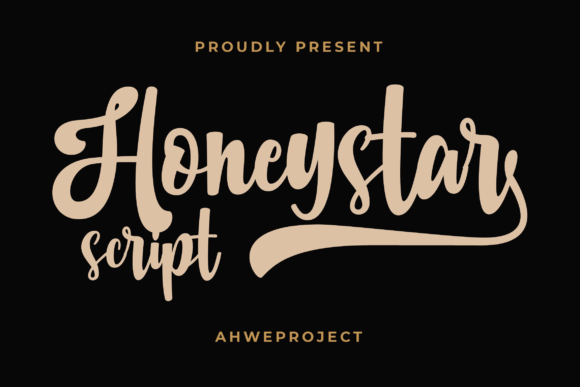
Join the lettering revolution with Honeystar Font, a beautifully crafted handwritten script font that will add a touch of nostalgia and charm to your creative endeavors. Gaze upon its graceful glyphs and swashes, lovingly designed to evoke the essence of yesteryear while embracing the aesthetics of modern design.
Honeystar Font is the perfect companion for any project seeking a vintage, handwritten touch. Its bold strokes and retro flair will elevate your headlines, logotype designs, and branding materials to new heights of elegance and sophistication. Picture your designs adorned with Honeystar's timeless beauty, captivating your audience with its effortless charm and undeniable appeal.
Unleash your creativity and let Honeystar Font transport you back to an era of classic elegance. Its PUA encoding grants you effortless access to a treasure trove of glyphs and swashes, empowering you to add intricate details and flourishes that will leave a lasting impression.
Embrace the versatility of Honeystar Font and witness its transformative power across a multitude of design applications. From eye-catching logos and branding elements to stunning wedding invitations and heartfelt greeting cards, Honeystar Font effortlessly adapts to your creative vision, adding a touch of retro magic to every project it graces.
Step into the world of Honeystar Font and let its timeless elegance captivate your audience. Its enchanting strokes and nostalgic charm will leave an indelible mark on their hearts, evoking a sense of nostalgia and appreciation for the beauty of handwritten artistry.